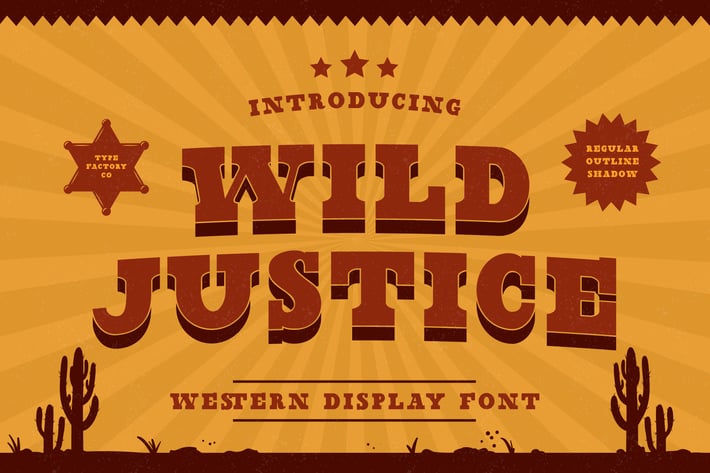
Wild Justice – Western Display Font
Wild Justice is a western display font, inspired by cowboy styles. This font has western elements, and is exemplified in the strong, bold and warm appeal of this font. This product contains 3 styles font such as Outline, Regular, and Shadow.
– All Caps
– Ligature
– Multilingual Support